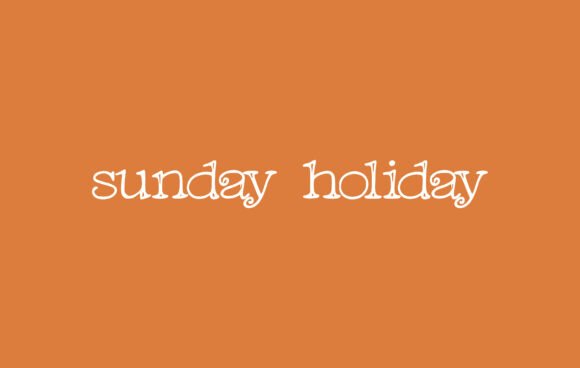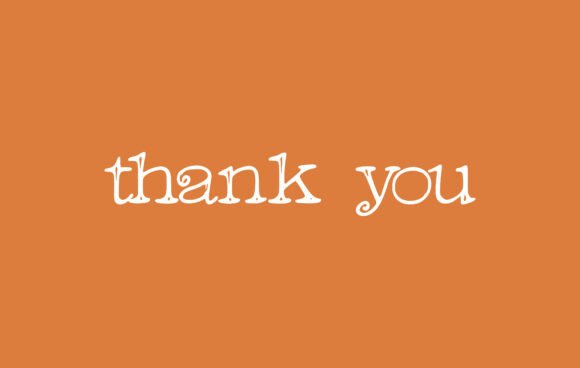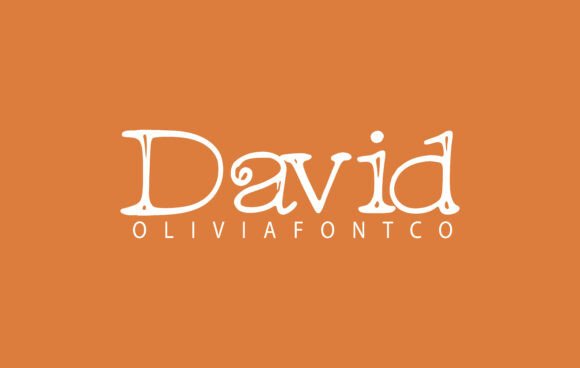
Discover the Charm of David Font: Elevate Your Designs with a Romantic Touch
In the world of typography, fonts play a crucial role in bringing creative ideas to life. Among the numerous fonts available, David Font stands out for its authentic handwritten style and romantic touch. Designed to capture the hearts of designers and crafters, this font has the potential to elevate your projects to new heights. In this article, we’ll explore the features and benefits of David Font, and how it can become your go-to choice for various design projects.
The Unique Characteristics of David Font
David Font is an expertly designed handwritten font that exudes a sense of romance and elegance. Its authentic feel makes it perfect for designs that require a personal touch. The font’s legibility is one of its standout features, making it suitable for use as both title and body text. Whether you’re working on a magazine headline, social media post, or wedding invitation, David Font is sure to make a lasting impression.
One of the key benefits of David Font is its versatility. This font can be used in a wide range of design projects, including:
- Magazine headlines: Add a touch of sophistication to your magazine covers with David Font.
- Social media: Make your social media posts stand out with this beautiful font.
- Branding: Use David Font to create a unique and memorable brand identity.
- Wedding invitations: Add a romantic touch to your wedding invitations and save-the-date cards.
- Cards: Create beautiful greeting cards for special occasions.
Why Designers and Crafters Love David Font
David Font has quickly become a favorite among designers and crafters due to its unique characteristics and versatility. Here are some reasons why:
- Ease of use: David Font is easy to read and works well in various design contexts.
- Emotional connection: The font’s romantic touch helps create an emotional connection with your audience.
- Customization: David Font can be customized to fit your design needs, making it a great choice for projects that require a personal touch.
- Time-saving: With David Font, you can create stunning designs in no time, saving you valuable time and effort.
Tips for Using David Font Effectively
To get the most out of David Font, here are some tips to keep in mind:
- Pair it with other fonts: Combine David Font with other fonts to create a unique and visually appealing design.
- Experiment with colors: Try out different colors to find the perfect match for your design.
- Use it consistently: Use David Font consistently throughout your design to create a cohesive look.
David Font is a beautiful and versatile handwritten font that can elevate your designs to new heights. Its romantic touch, legibility, and ease of use make it a favorite among designers and crafters. Whether you’re working on a magazine headline, social media post, or wedding invitation, David Font is sure to make a lasting impression. So why wait? Discover the charm of David Font and take your creative ideas to the highest level.
- David Font is an authentic handwritten font with a romantic touch.
- It’s legible and works well as title or body text.
- David Font is versatile and can be used in various design projects.
- It’s easy to use and customize.